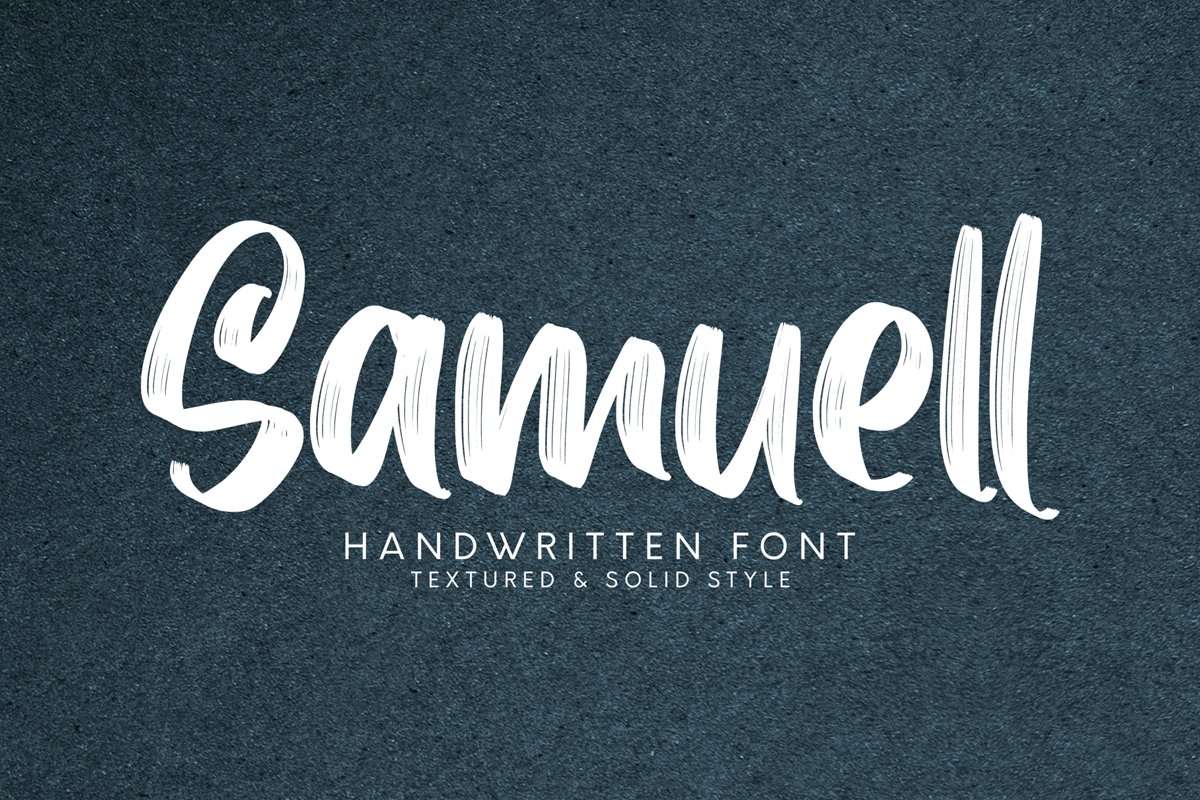
Samuell
Samuell Solid
Samuell Textured
Samuell! A handwritten script font with textured and solid styles. Samuell font is perfect for branding, logotype, apparel, T-shirt, Hoodie, product packaging, quotes, flyer, poster, etc.
1. Uppercase and lowercase characters
2. Supports international languages
3. Numerals, punctuations, stylistic alternates.